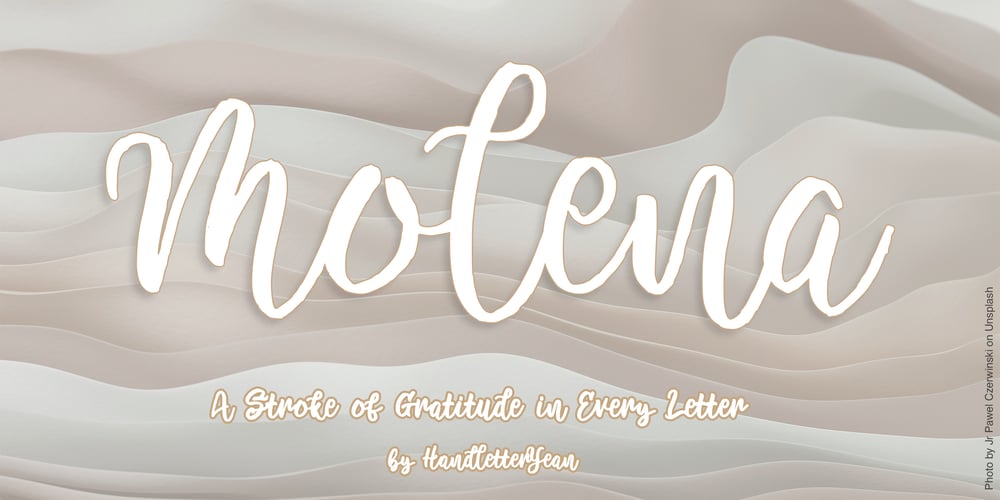
Molena Font Family was designed by Yean Aguste and published by HandletterYean. Molena contains 4 styles and family package options. Molena is a handcrafted script and handwritten font, carefully created with brush strokes to capture the warmth and intimacy of Thanksgiving. Each letter flows with a natural and elegant rhythm, embodying the spirit of gratitude and togetherness that defines this special celebration. Designed with artistic detail, Molena brings a personal, heartfelt touch to any design, seamlessly blending the beauty of thankfulness with a cozy atmosphere.Whether for Thanksgiving invitations, greeting cards, posters, or branding, Molena is perfect for adding a soft, welcoming vibe to your designs, making every project feel more personal and meaningful.